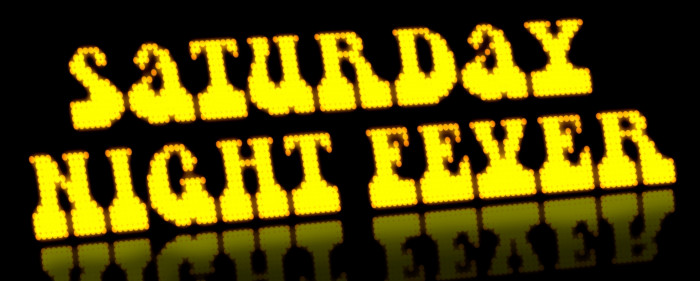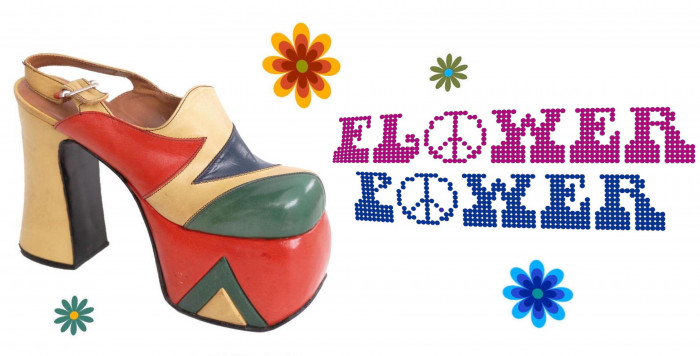
Caps only. Inspired by the cool font "Chwast Art Tone" -or simply "Artone"- (1968, by the legendary master of design Seymour Chwast), "Inkwell" (1992, Sam Wang) and "Dogsmoke" (2019, Humberto Gillan), and recalling the feelings of those unforgettable momments from the "Saturday Night Fever" times. Tony Manero lives!
@elmoyenique - Wonderful font!  The chunky lower "bell-bottom" curves & serifs remind me of 1970s platform shoes!  :^)